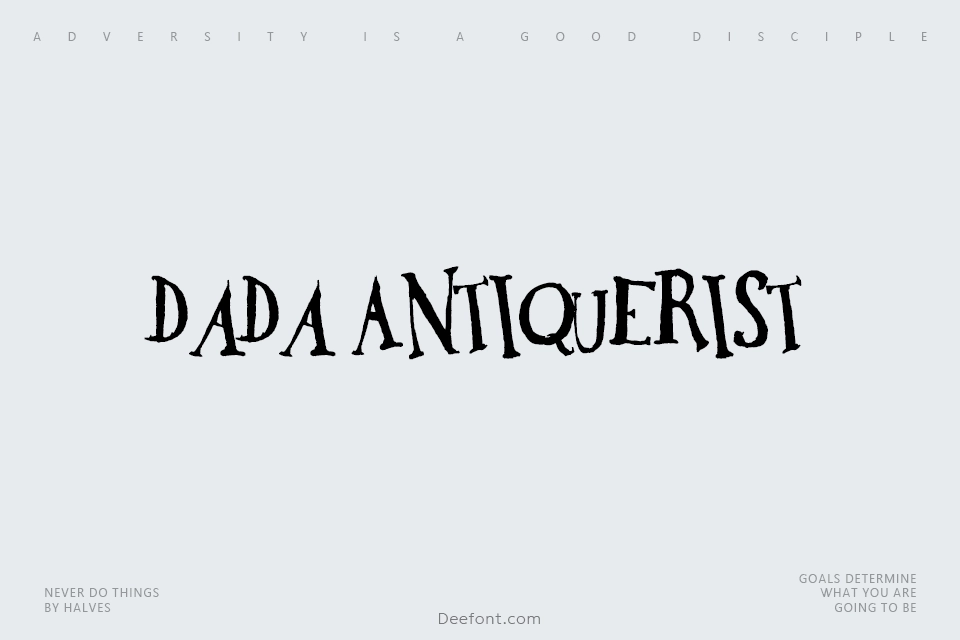
DaDa Antiquerist Font
DaDa Antiquerist is a playful and whimsical display font featuring irregular, hand-drawn letterforms with artistic distortion. Designed by Heyheydecay, this decorative typeface is characterized by uneven stroke widths, varying letter heights, and serif elements that create a unique vintage aesthetic. All uppercase letters are different, ensuring each word maintains a random, handwritten feeling without excessive capitalization. Perfect for creative projects including artistic posters, invitations, branding for design-focused businesses, and display typography that demands distinctive personality and unconventional charm.fontmirror+1